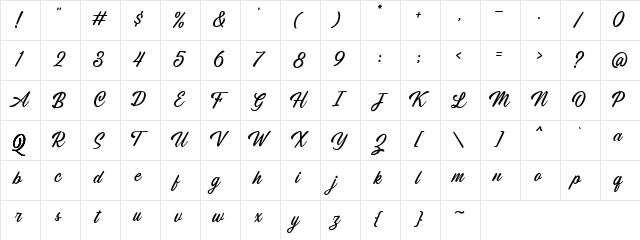
Chanide Script DEMO Regular
Foundry Letterhend Studio
DesignerLetterhend Studio
Design Context for Chanide Script DEMO Typeface
Chanide Script DEMO flows with the natural rhythm of handwritten lettering, making it ideal for designs that call for warmth and personal expression.
Font Pairing: Combine Chanide Script DEMO with a simple geometric sans for maximum contrast — the tension between flowing curves and clean structure is a classic typographic pairing.
Pro Tip: Use Chanide Script DEMO for short runs of text — names, titles, or taglines. Extended body copy in script faces tires the eye quickly.